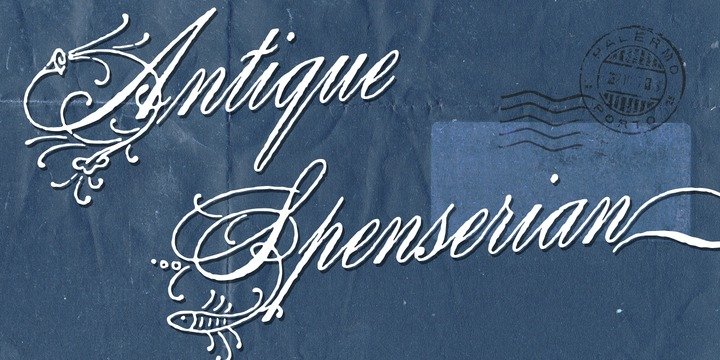
Antique Spenserian Font
This antique script is based on Spencerian script released from MacKellar, Smiths, & Jordan in the
19th century.
This family comes in two varieties, Standard and ornamented capitals. The Standard has orthodox style